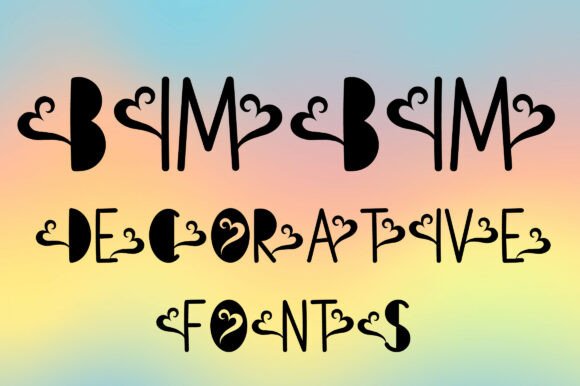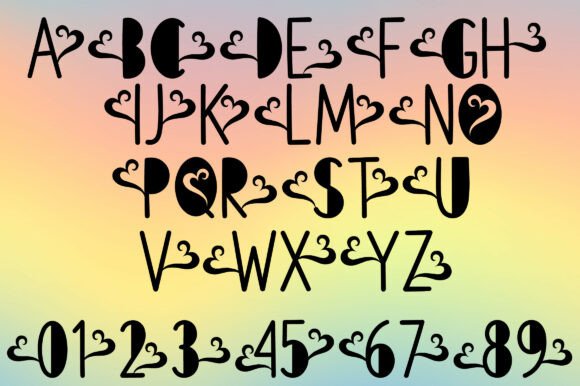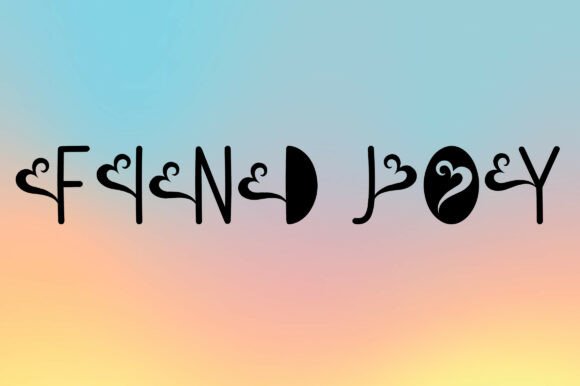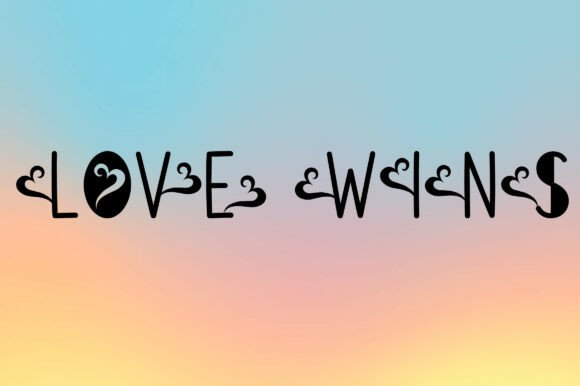
Adding a Touch of Love to Your Designs
Have you ever stared at a blank canvas, eager to bring a creative project to life, but struggling to find the perfect font to match your vision? That’s where the magic of typography comes in. For designers seeking to add a playful, whimsical touch to their work, I’ve got just the thing: BIMBIM Decorative Heart Style Fonts.
This adorable typeface is designed to bring warmth and personality to any project, making it a must-have for logos, branding, posters, invitations, and more. With its charming heart-inspired elements and artistic design, the Bimbim Font is perfect for Valentine-themed designs and social media graphics. As a designer, you’ll love how this font brings a cheerful and stylish touch to your work, giving you endless opportunities to express your creativity and showcase your unique style.
Bimbim Font Key Features
- Font Family: Bimbim Font is a unique, handwritten font family designed for creative purposes.
- Character Count: The font family includes a large character set, covering Latin, Cyrillic, and Greek alphabets, as well as a range of punctuation and special characters.
- Unique Characteristics: Bimbim Font features a distinctive, hand-drawn style with varying line widths, making it perfect for adding a touch of personality to designs.
Bimbim Font Review
I recently had the chance to work with the Bimbim Font, and I have mixed feelings about it. ✨ On the one hand, I think the font is visually appealing, with a fun and quirky style that can add a lot of personality to a design. The curves and lines are well-balanced, making it a great choice for headings and titles.
One of the things I like about Bimbim is its flexibility. It comes in a range of weights and styles, making it easy to use in a variety of contexts. Whether you’re looking for a bold, attention-grabbing font or a more subtle, elegant look, Bimbim has got you covered.
- Visually appealing and quirky style
- Flexible and comes in a range of weights and styles
- Great for headings and titles
- May be too bold or attention-seeking for some designs
- Not ideal for body text, as it can be difficult to read at smaller sizes
- May not be suitable for formal or professional designs
Overall, I think Bimbim is a fun and creative font that can add a lot of personality to a design. However, it may not be the best choice for every project. If you’re looking for a bold, attention-grabbing font for a creative or marketing project, Bimbim could be a great option. But for more formal or professional designs, you may want to consider something a bit more subdued.
Getting the Most Out of Bimbim Font
To get the most out of Bimbim Font, consider the following tips:
– Use it sparingly for emphasis or headings.
– Pair it with a neutral font for body text.
– Experiment with different font sizes and styles to create visual interest.
Bimbim Font is commonly used for:
– Fashion and beauty branding.
– Food and beverage packaging.
– Luxury product labeling.
Alternatives to Bimbim Font for Designers
Oswald
Oswald is a sans-serif typeface designed by Vernon Adams. It is a great alternative to Bimbim Font for headings and titles due to its bold and modern look. Oswald is ideal for use in digital media, magazines, and advertising where a strong and eye-catching font is required.
Comparison to Bimbim Font: Oswald has a more geometric and structured design compared to Bimbim Font, which has a more rounded and playful feel. Oswald is better suited for formal and professional applications, while Bimbim Font is more suitable for creative and casual projects.
Abril Fatface is a serif typeface designed by Pablo Parra Ruiz. It is a great alternative to Bimbim Font for body text and paragraphs due to its elegant and sophisticated look. Abril Fatface is ideal for use in publications, websites, and corporate materials where a classic and refined font is required.
Q: Is Bimbim Font optimized for digital use?
Yes, Bimbim Font is optimized for digital use, including web and mobile applications. The font is designed to render smoothly at various resolutions and screen sizes, ensuring a consistent and high-quality display across different devices.